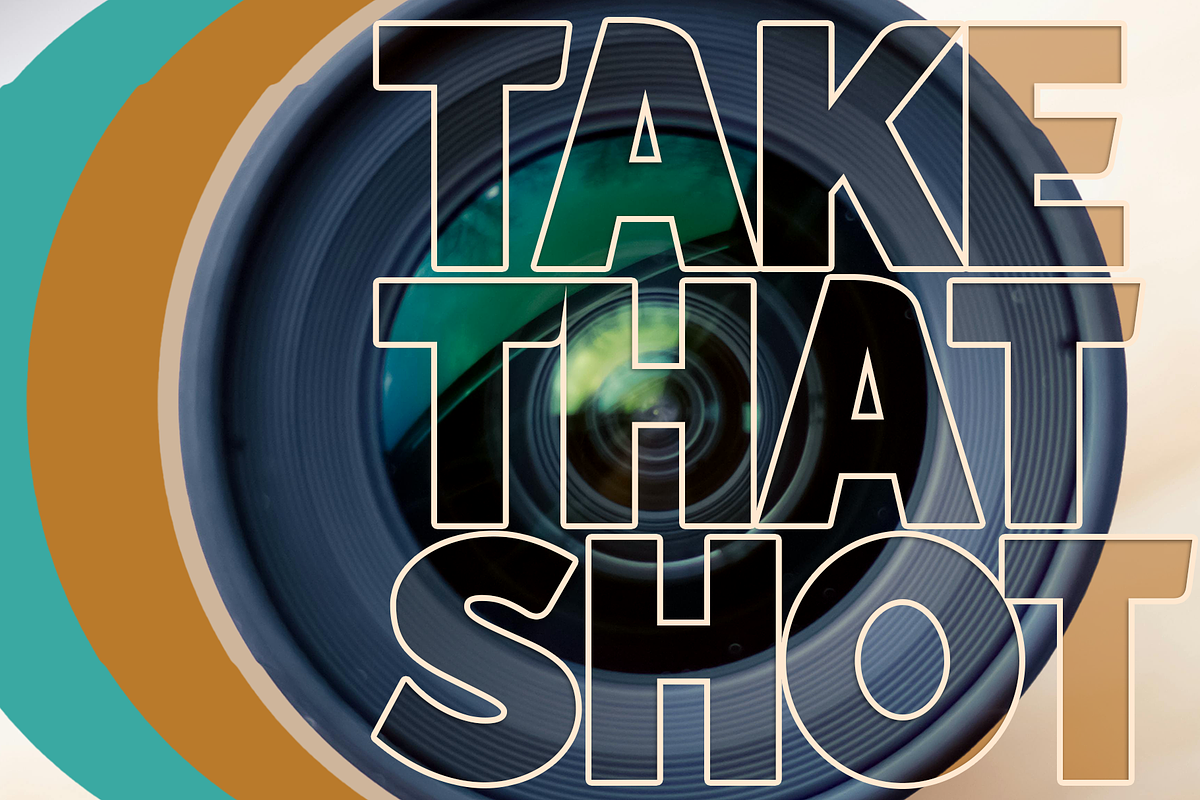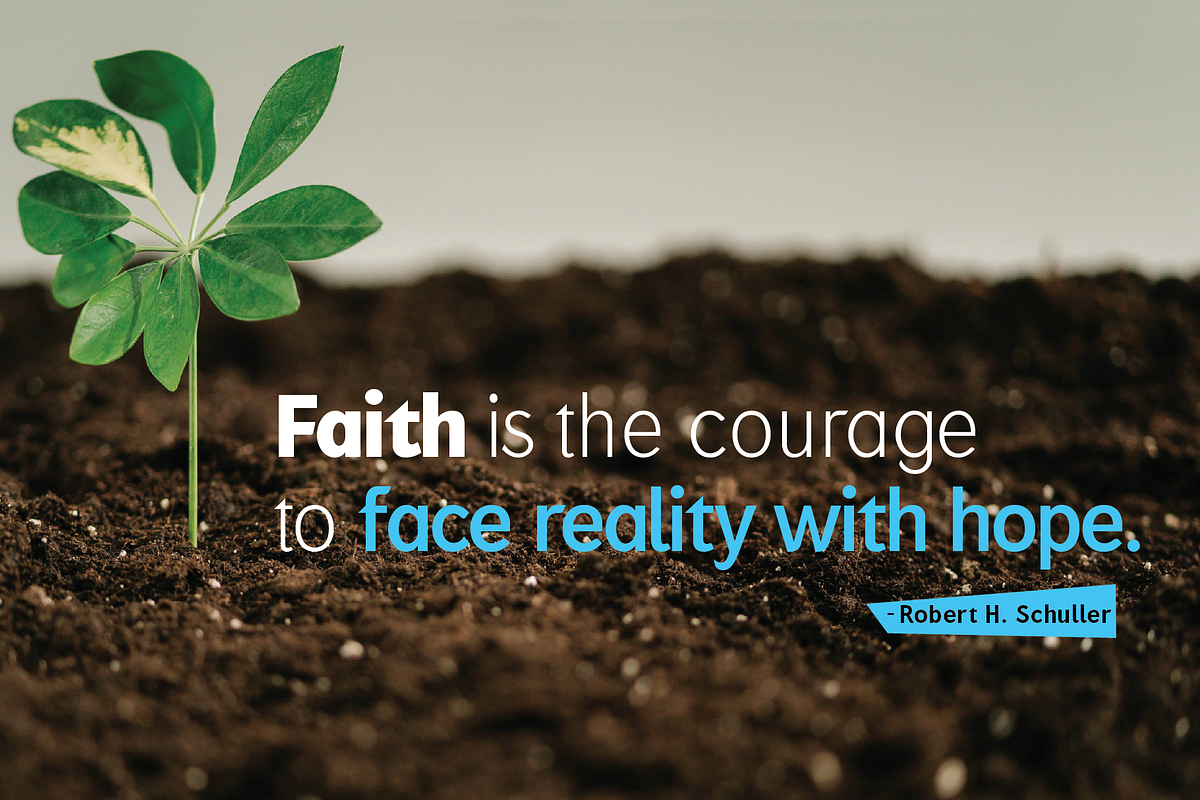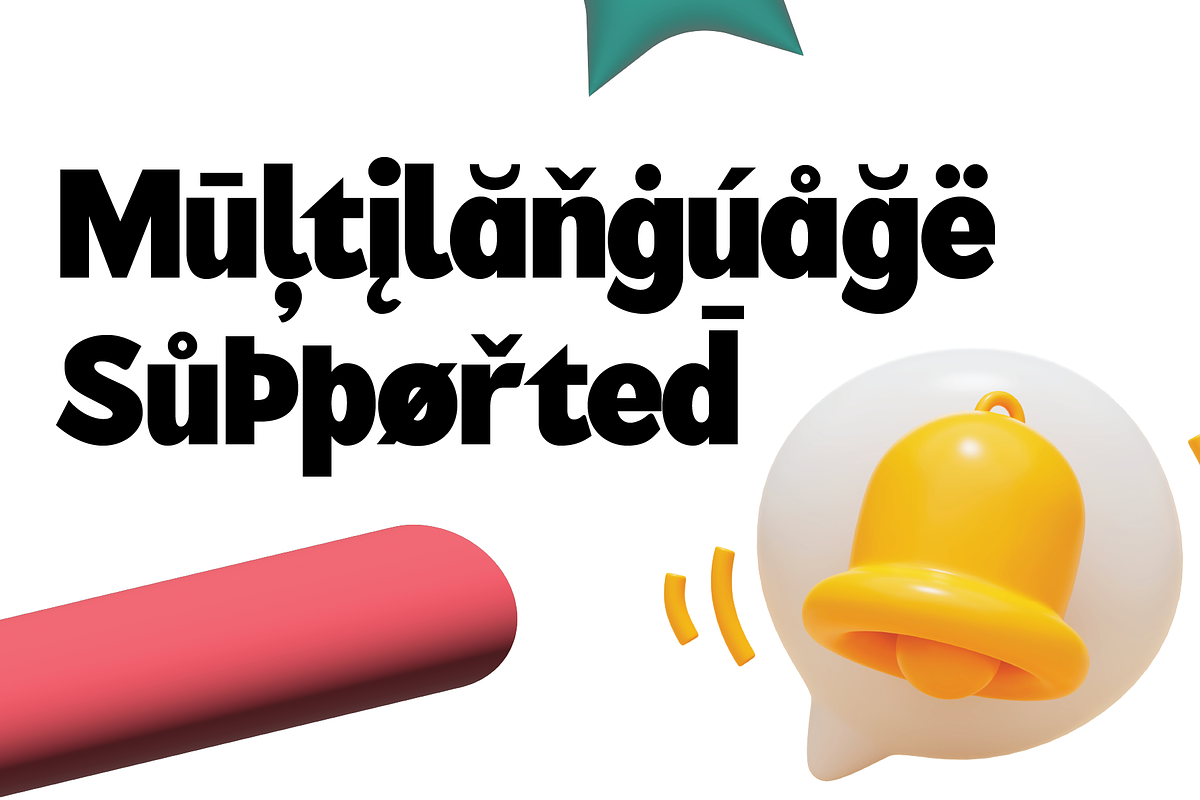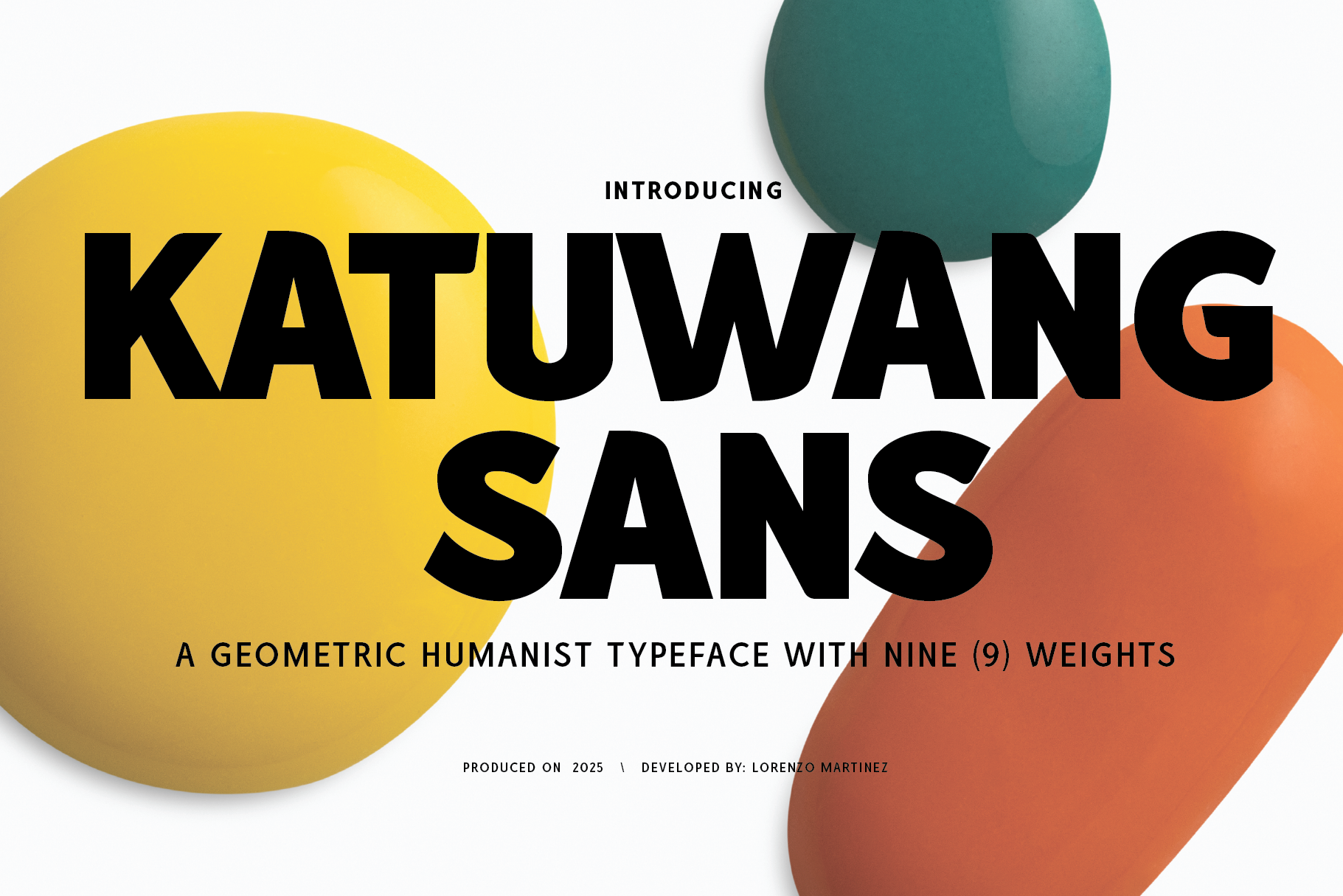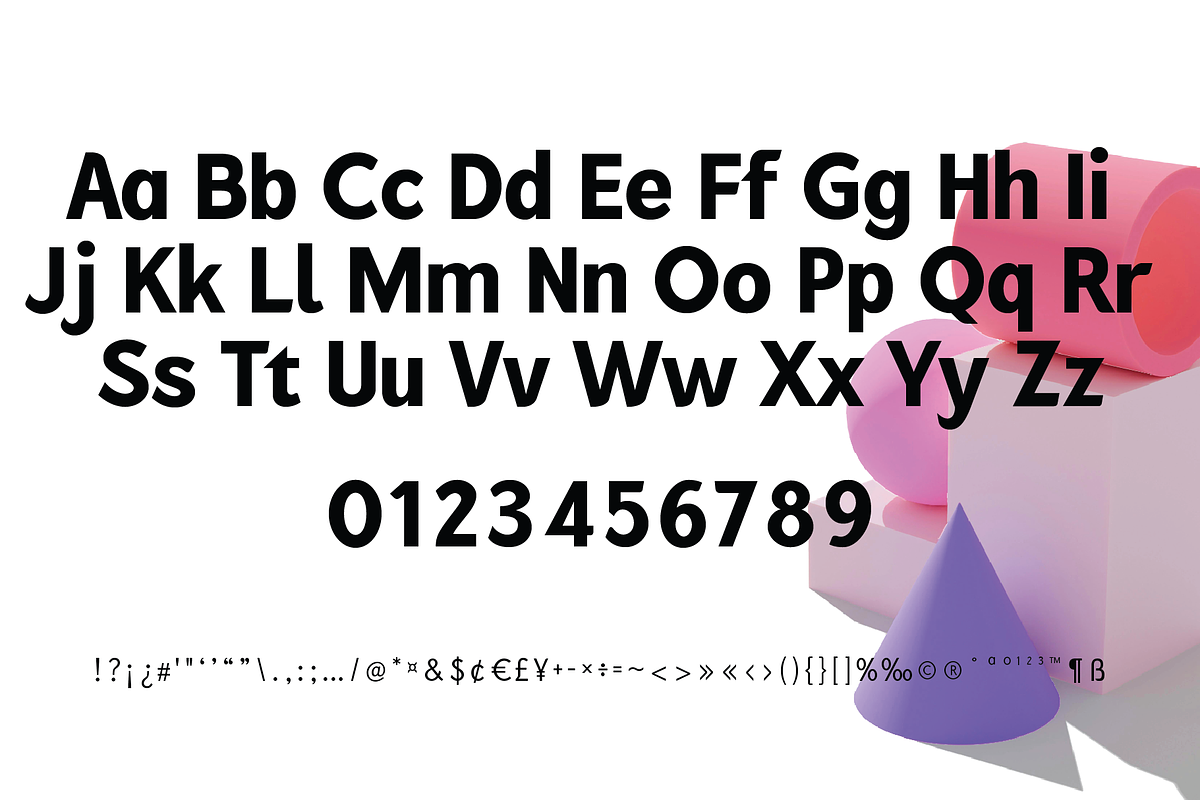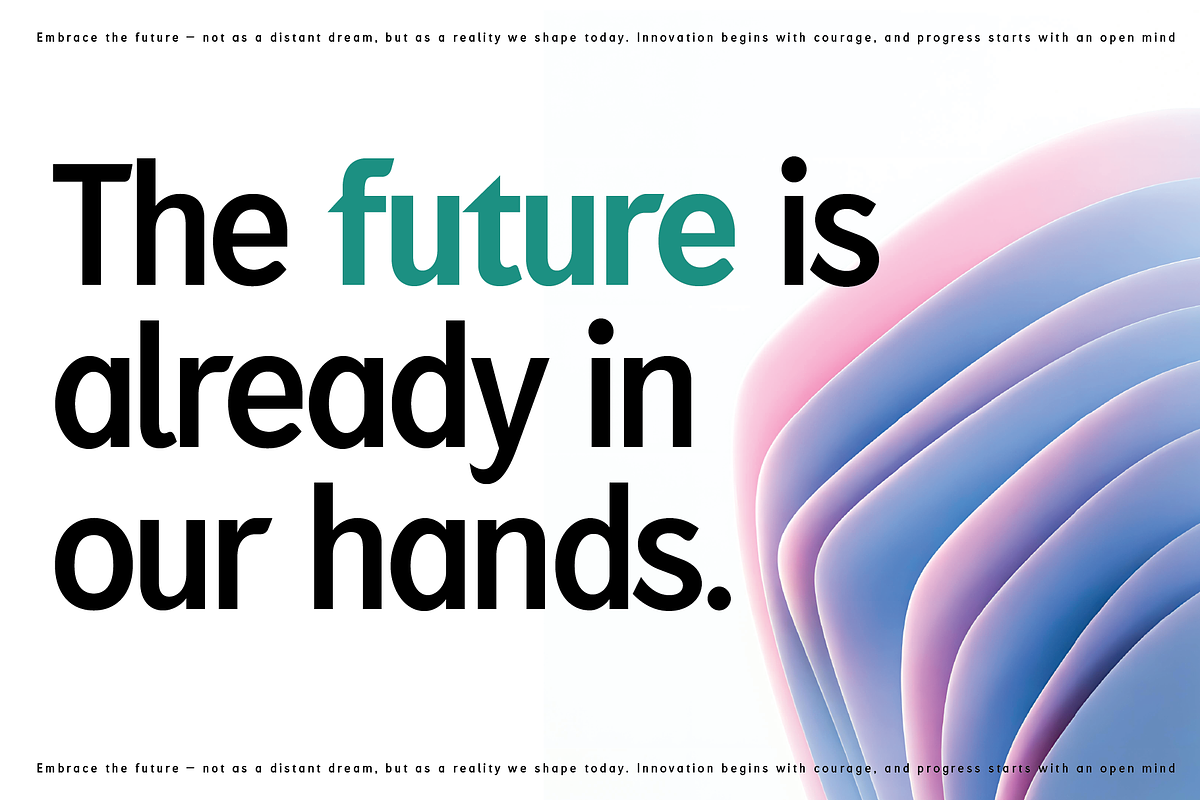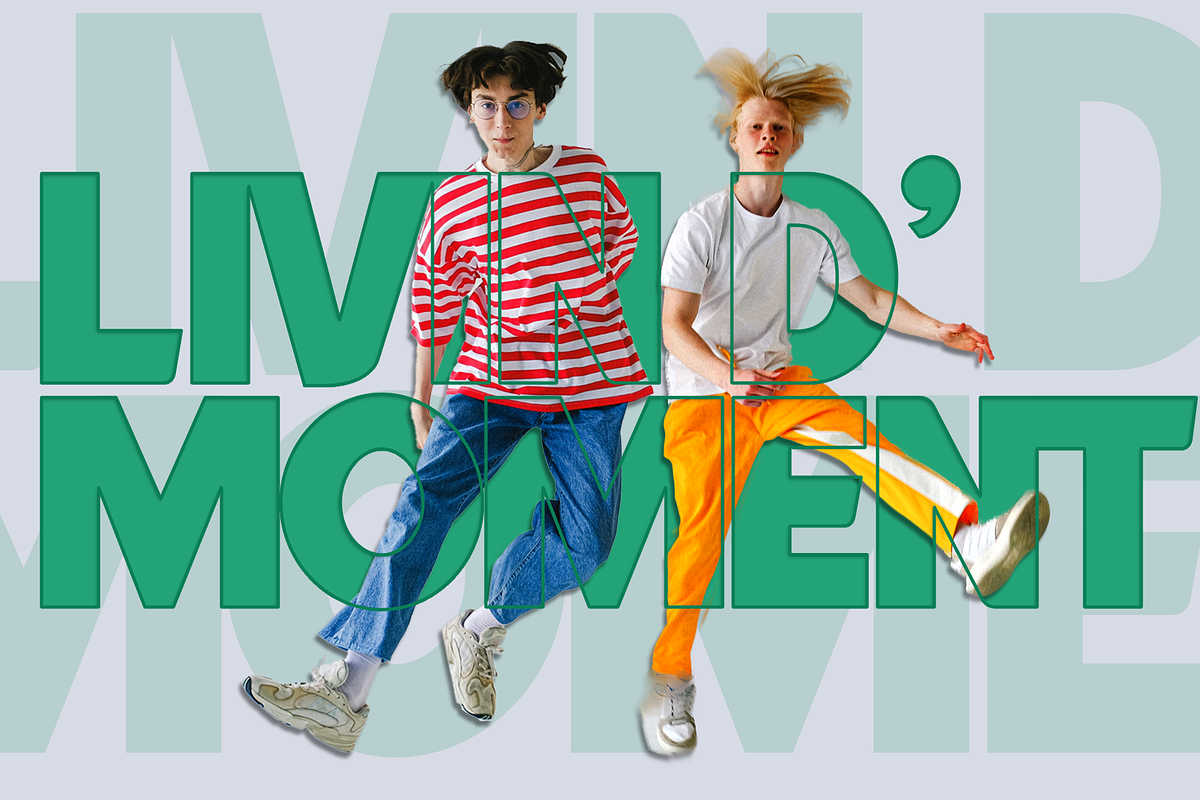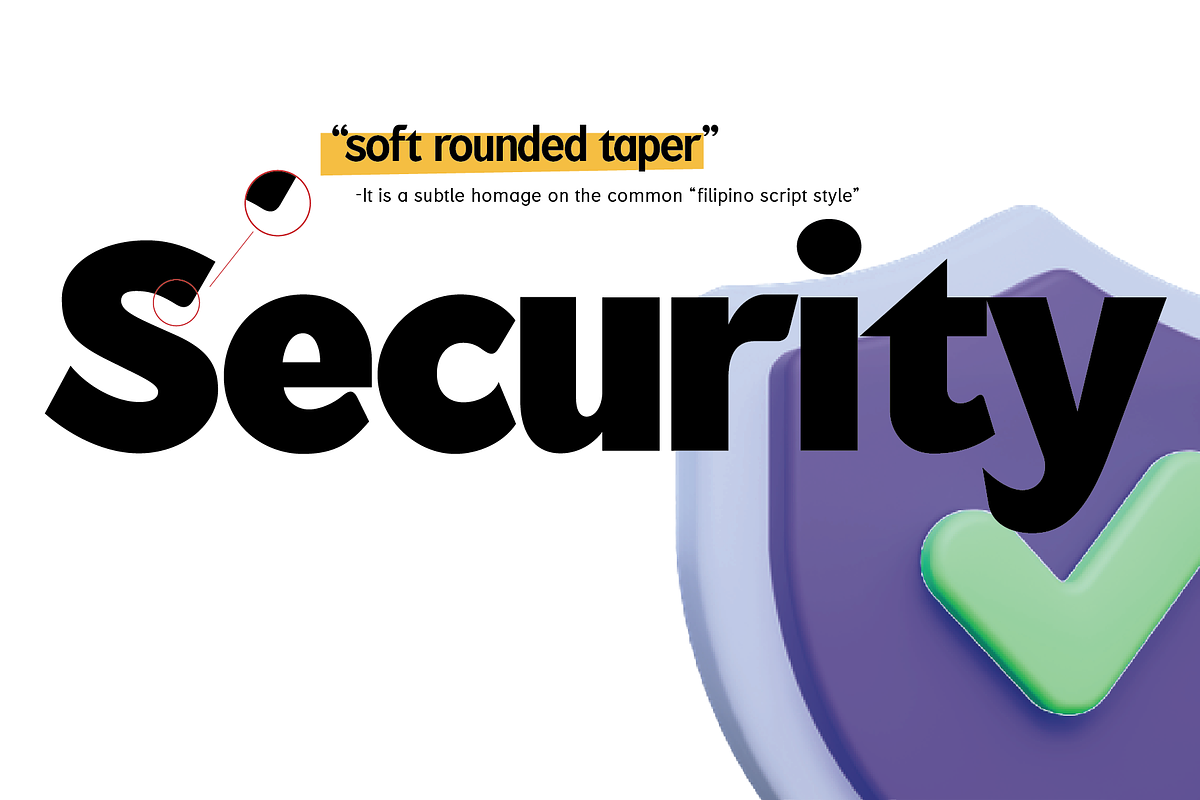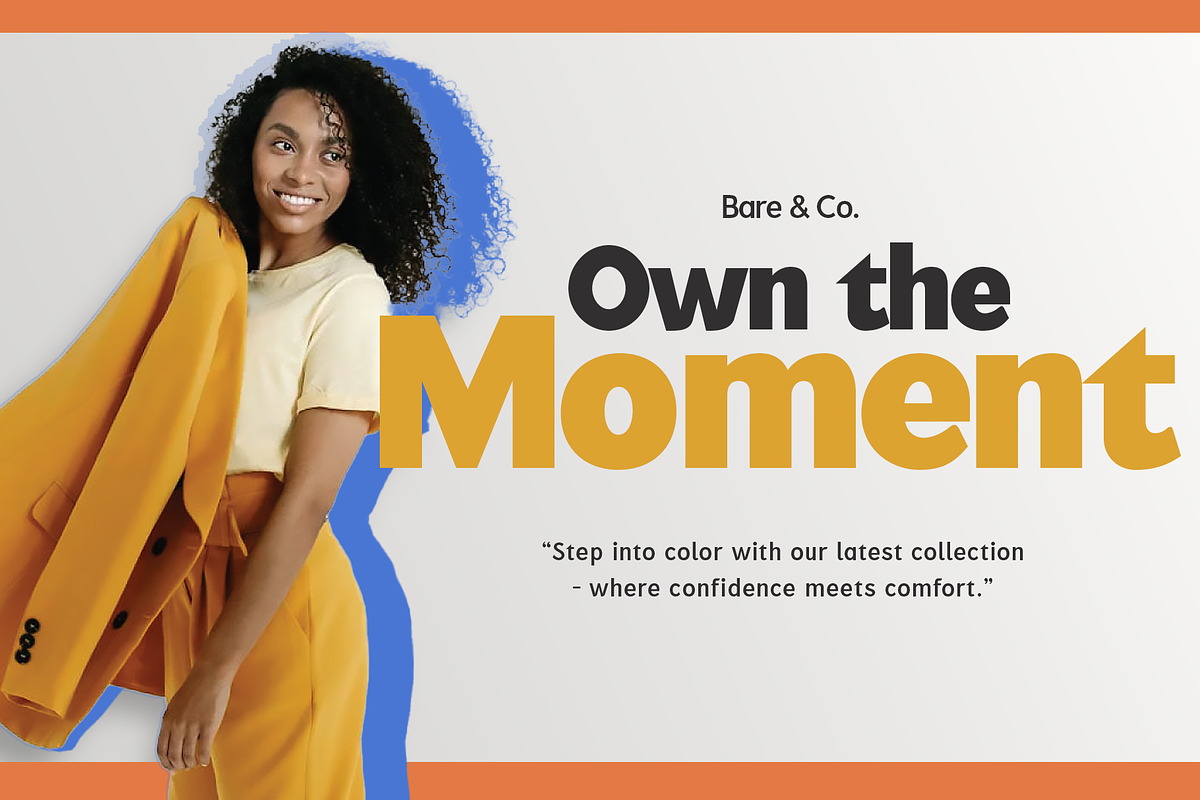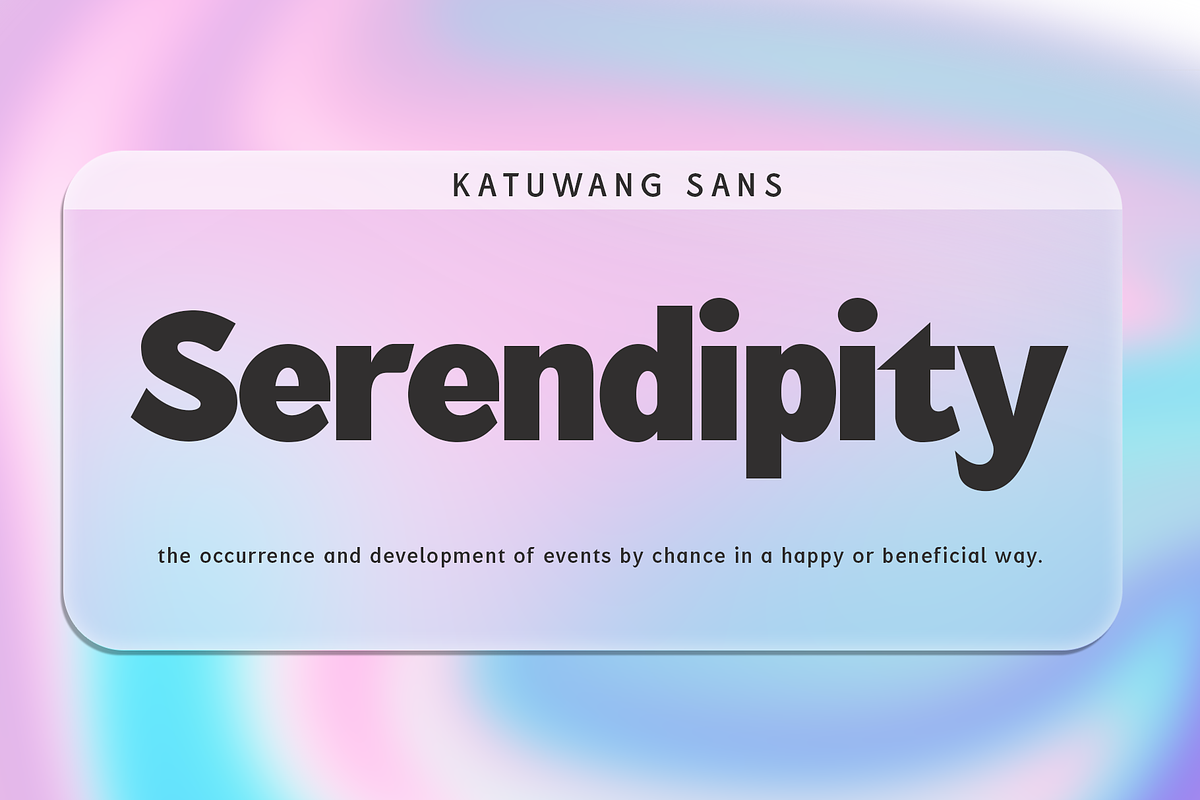
Katuwang Sans - Geometric Font
Katuwang Sans is a geometric humanist typeface inspired by neutral looking fonts like helvetica, futura, Montserrat and alike.
This typeface is neutral looking meaning it is versatile enough to be used in all applications and functions. The different weights included in this font helps the designers to choose their desired weight as they needed. Thin to Regular (body captions); Medium-Black (titles, and headlines.
- Legibility: The font is designed to be used as both titles and body captions.
- Nine (9) different weights from thin - black that you can use for various functions
- Style: Neutral, Highly Legible but still have that "Logotype" look if needed.
- Functionality: Use it anywhere, and anything.